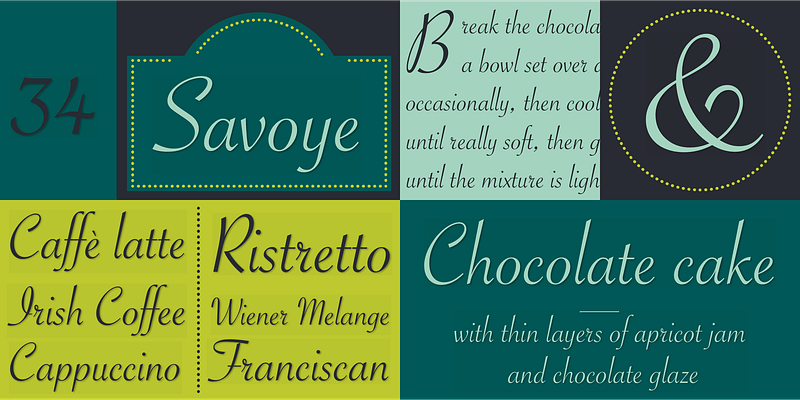
Savoye was created by Alan Meeks in 1992. The spirit of the Jugendstil lies behind the design of this font. Graceful upright letters combine to create delicate, flowing word figures. The light stroke contrast and slant to the right emphasize the liveliness of Savoye. Generous capitals contrast with small, demure lower case letters whose distinguishing characteristic is their high ascenders. This contrasts beautifully with the relatively reserved descenders. The capitals can also be used as initials combined with other alphabets. Savoye is the perfect font for invitations, greeting cards and other personal correspondence.